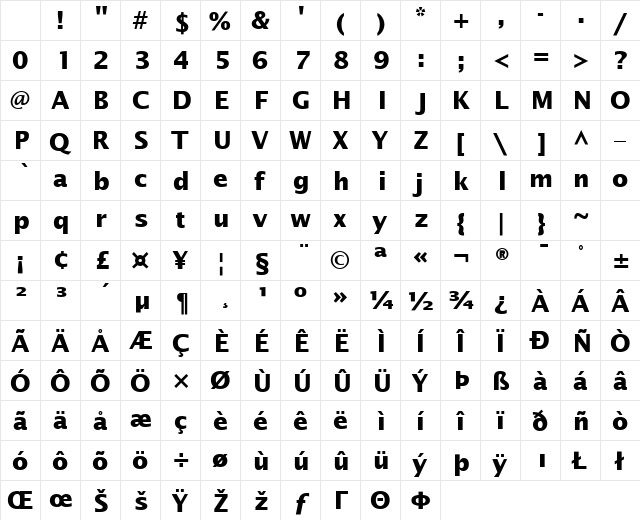
Complete Insight Sans SSi Bold glyph index. Displaying only characters natively supported by Insight Sans SSi Bold font.
Insight Sans SSi is a composed and adaptable typeface that performs quietly and consistently across a wide range of design contexts. Its bold stroke weight gives it real presence on the page.